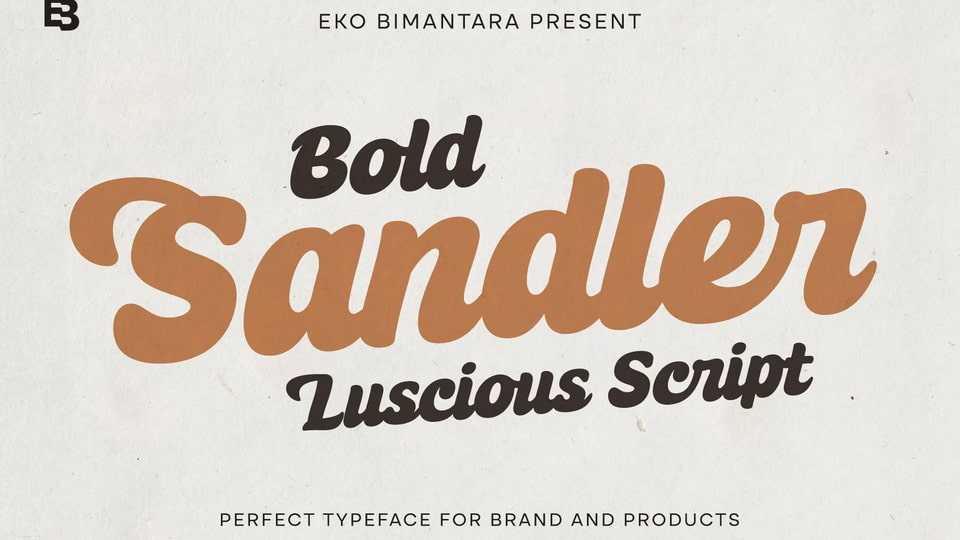
Download Sandler font, a bold, soft, and warm script typeface that is perfect for branding, titles, and headers. It has a modern script style with carefully crafted letterforms that give it a luxurious and refined feel.